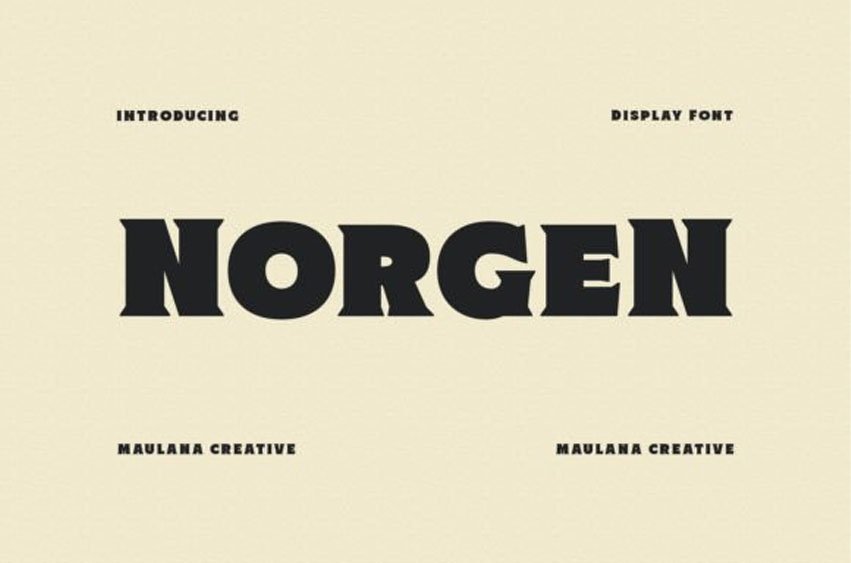
Norgen Font is a bold, all-caps display font featuring the perfect amount of trendiness.
Whether you’re using it for crafting, digital designing, presentations, or making greeting cards, it’s perfect!